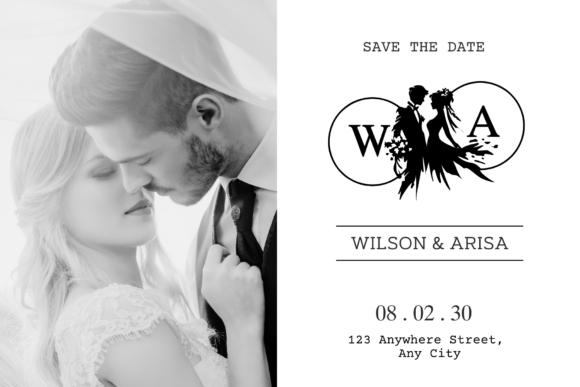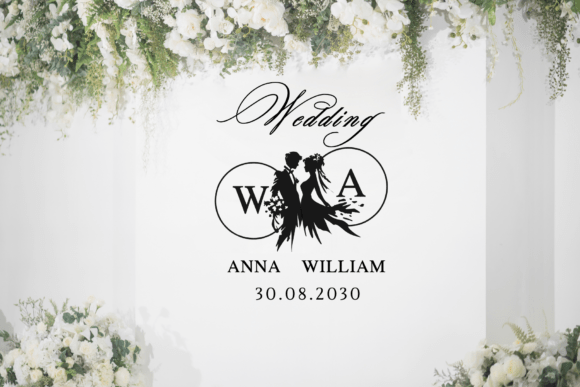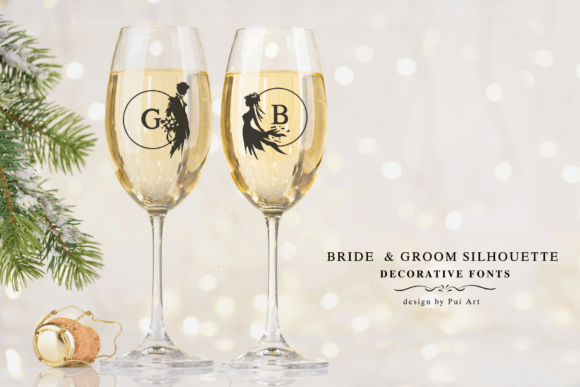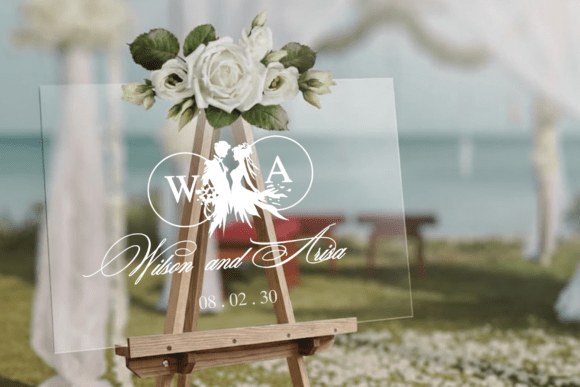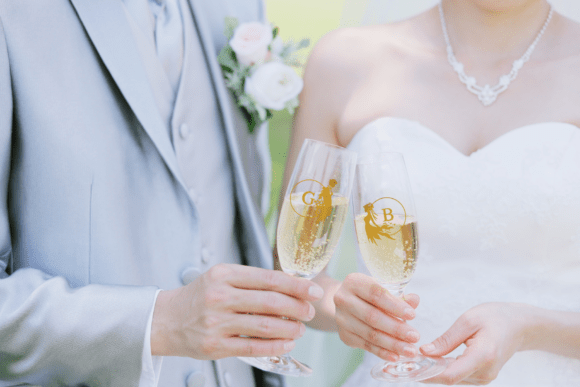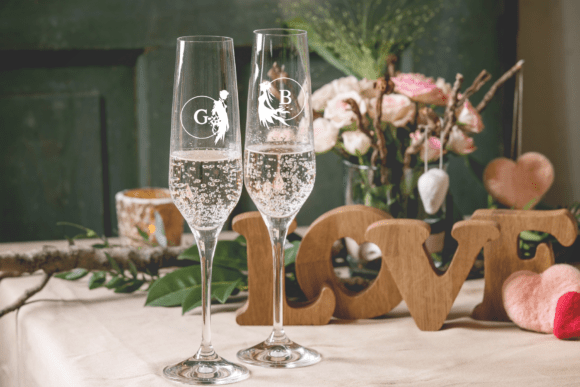
Introduction to Bride & Groom Silhouette Monogram Font
Do you remember the moment when you first started designing your wedding stationery? The excitement, the creativity, and the desire to make it perfect? For many of us, it’s a moment we cherish forever, and the right design resource can make all the difference. That’s where the Bride & Groom Silhouette Monogram Font comes in – a stunning and elegant typeface that will elevate your wedding projects to the next level.
With its high-quality design and transparent background, this font is a treasure trove for creative projects. Whether you’re a seasoned designer or a DIY bride, the Bride & Groom Silhouette Monogram Font offers endless possibilities for customization and personalization. Plus, with a free download available, you can start creating stunning wedding emblems and monograms right away.
As a valuable design resource, the Bride & Groom Silhouette Monogram Font is an essential tool for wedding planners, designers, and anyone looking to add a touch of cinematic elegance to their wedding projects.
Key Features of Bride & Groom Silhouette Monogram Font
- Unique Silhouette Design: A beautifully crafted monogram font featuring a bride and groom silhouette, perfect for wedding invitations, stationery, and other design projects.
- Perfect for Creative Projects: This elegant monogram font is ideal for wedding invitations, stationery, and other creative projects, adding a touch of sophistication and romance.
Honest Review: Bride & Groom Silhouette Monogram Font
I recently came across the Bride & Groom Silhouette Monogram Font, and I must say it’s a great design resource for anyone looking to add a personal touch to their creative project. One of the things that stood out to me was the high quality of the font, which is available for free download. The transparent background makes it easy to use in various design settings.
What works well: ✨ The font is incredibly versatile and can be used for a wide range of wedding-themed designs, from invitations to decorations. The silhouettes of the bride and groom are beautifully designed and can add a touch of elegance to any project.
- Beautiful silhouettes of the bride and groom
To get the most out of the Bride & Groom Silhouette Monogram Font, experiment with different font sizes, colors, and arrangements. You can also combine the font with other design elements to create a unique and eye-catching design.
The Bride & Groom Silhouette Monogram Font is ideal for wedding invitations, save-the-date cards, and other wedding-related designs. It’s also a great resource for creating custom gifts, such as picture frames, mugs, and candles.